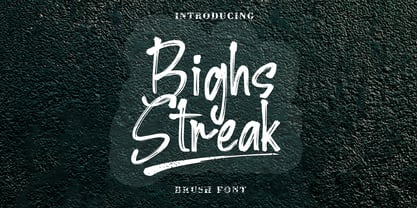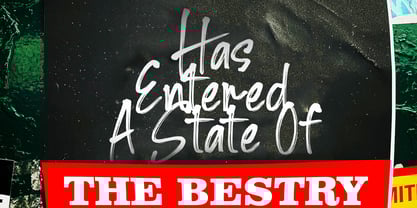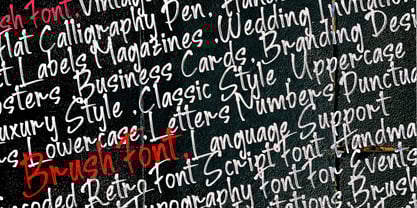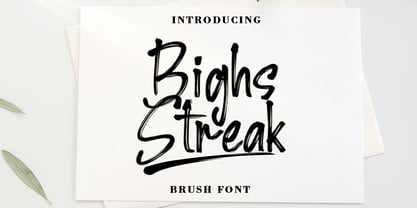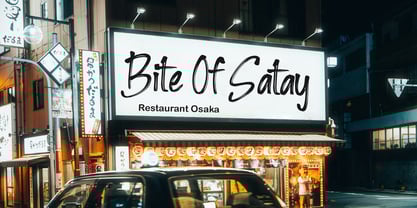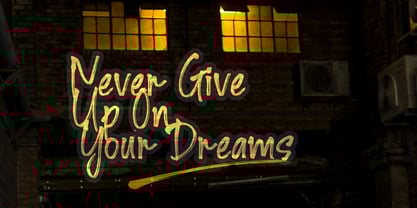
Bighs streak
von Sulthan Studio
Die Schriftfamilie Bighs streak wurde von Nasrullah entworfen und von Sulthan Studio veröffentlicht. Bighs streak enthält 1 Stile.
Introducing a sturdy, nature-inspired brush font: a harmonious blend of calm and boldly stand-out character. As the name suggests, Bighs streak This font shines when applied to projects that want a touch of natural brushstrokes, exuding a sense of calm and awe. A versatile choice, its rough edges and extraordinary character can transform your work into an impressive work of art.
Designer: Nasrullah
Herausgeber: Sulthan Studio
Foundry: Sulthan Studio